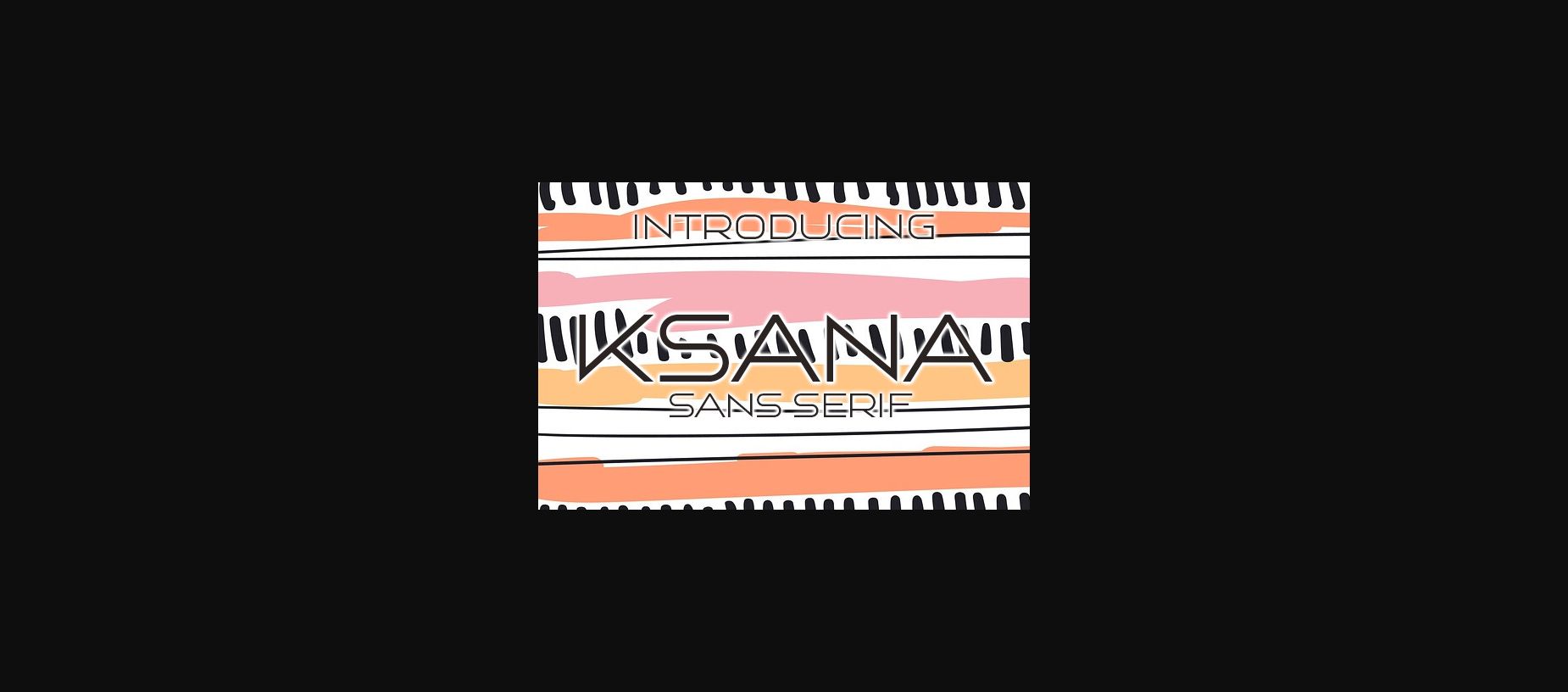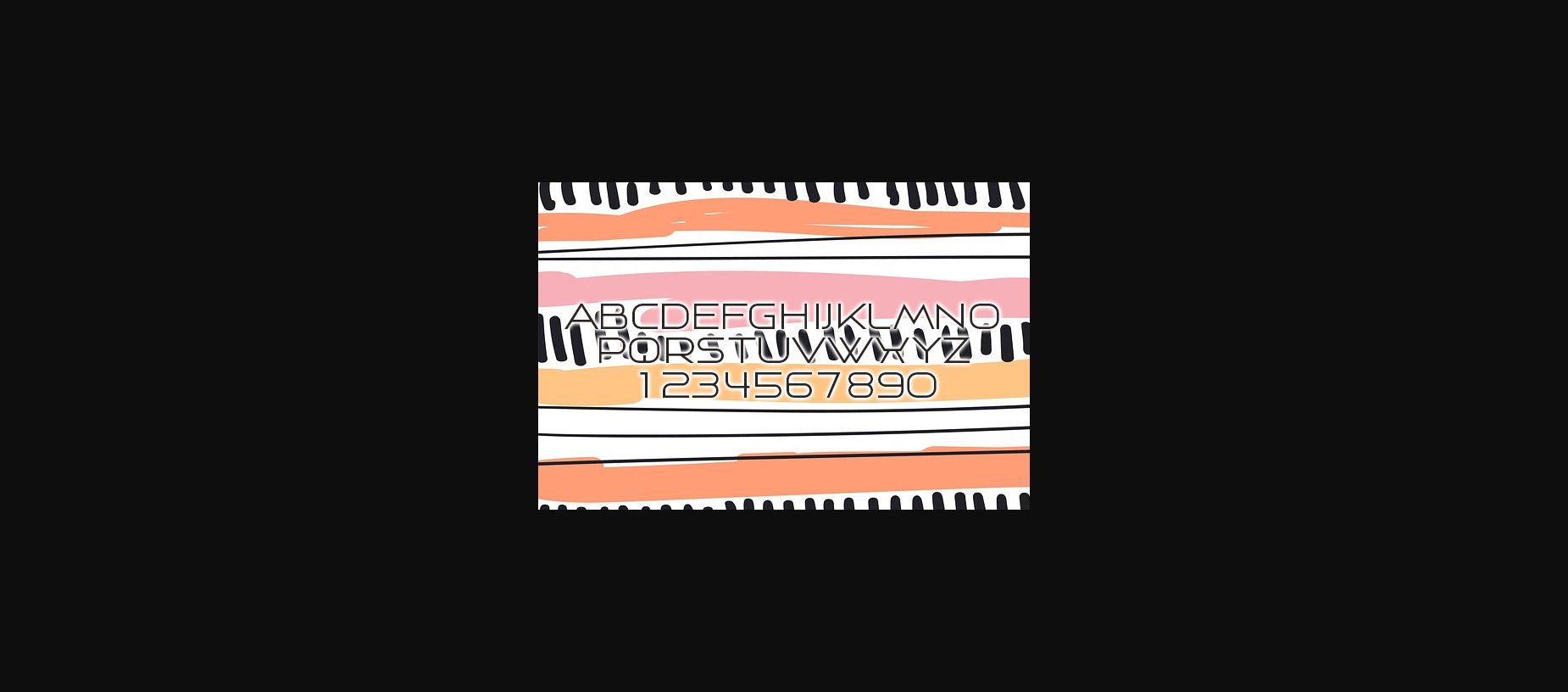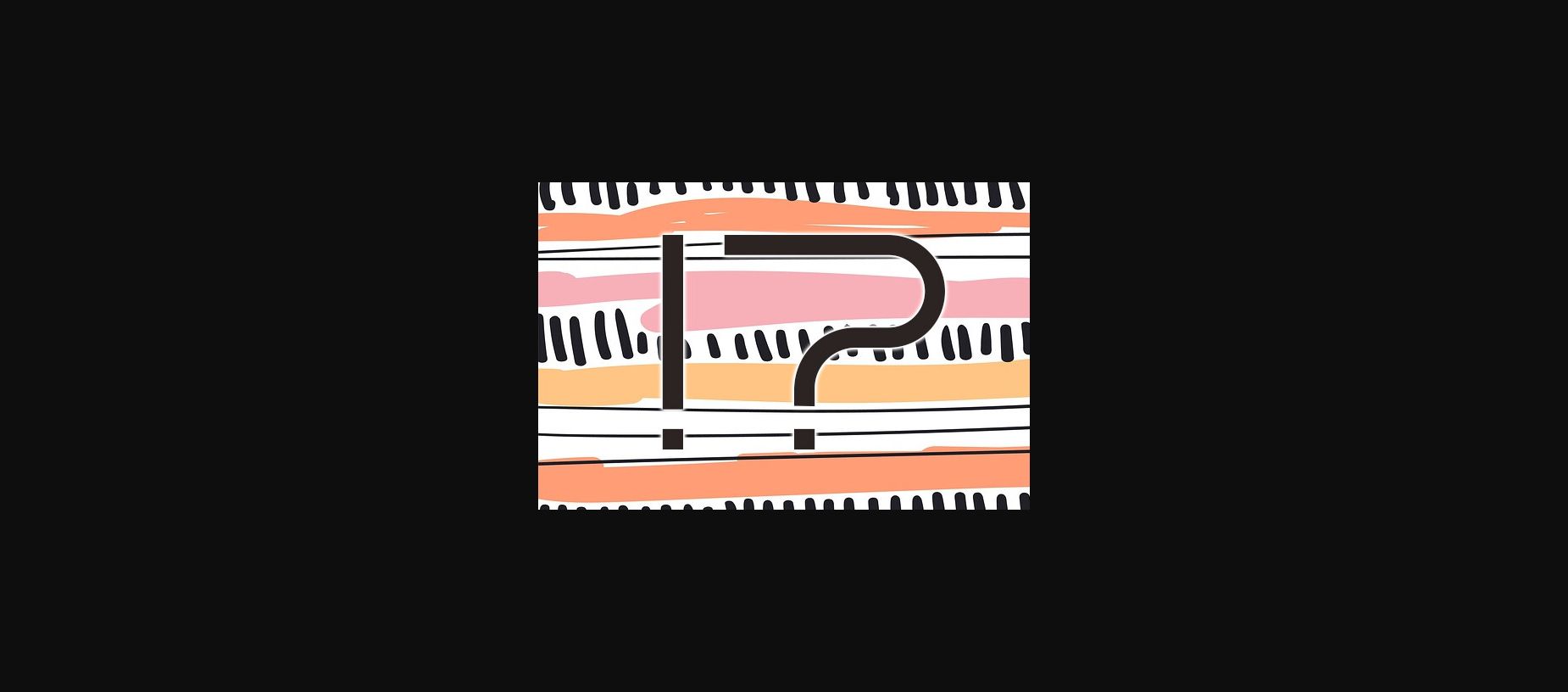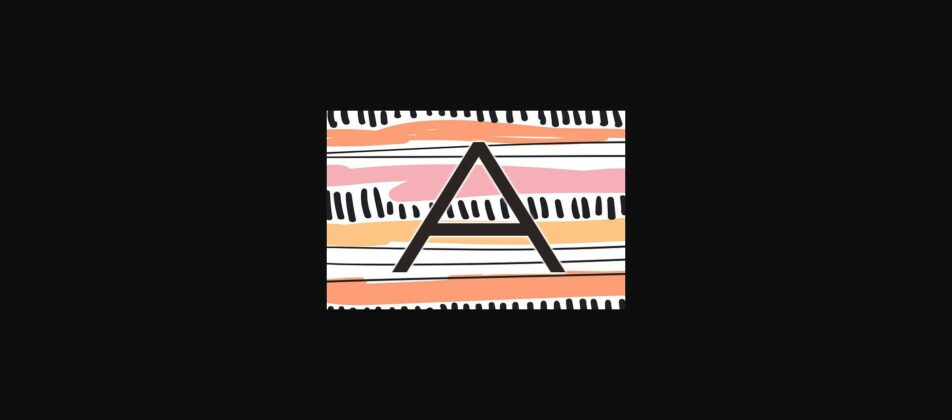
Ksana Font
About Ksana Font
Ksana is an awsome sans serif font that will look stunning on any of your designs. Use this font on posters, flyers and t-shirts.